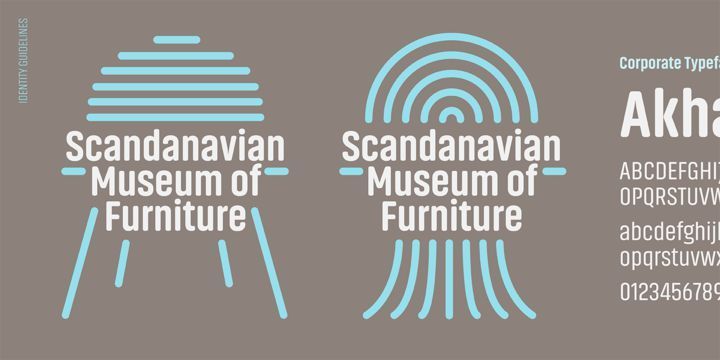
Akhand Soft Font
Akhand Soft Font aspects an awfully tall and narrow personality design that makes it most suitable for designing titles for posters and website headers. Because of its kind of stylish curves, it is excellent for a better font pairing.
It is virtually a mono-linear sans serif design. All of the corners of the typeface looks like microbrew font characters are rounded.
Style Of Akhand Soft Font